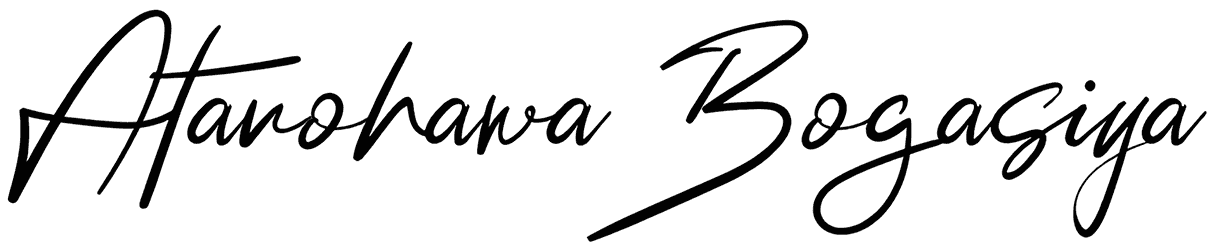
Atanohawa Bogasiya Font
Are you looking to create a new trend in designing personal logos and social media posts? So differentiate them using Atanohawa Bogasiya. This signature font, which is made by hand and expertly designed, is a solid choice to add to your toolbox. Because it can flow continuously from one project to another and create a beautiful combination of broken lines in your texts.